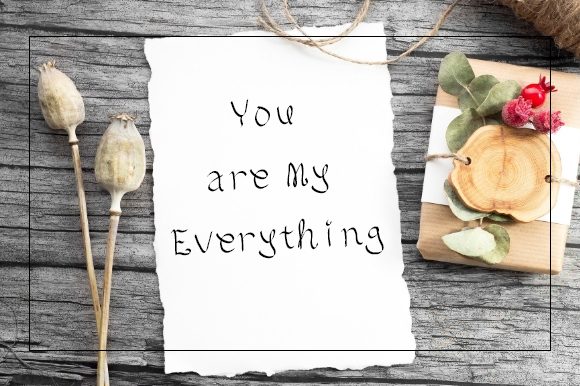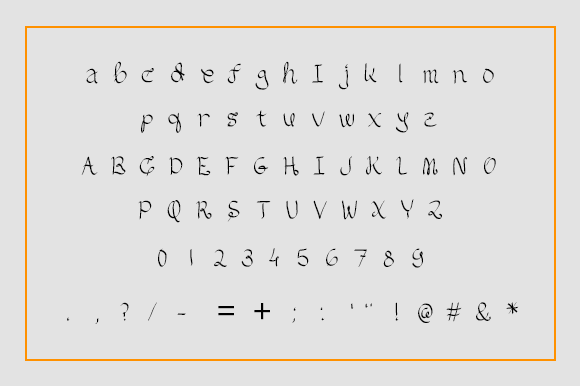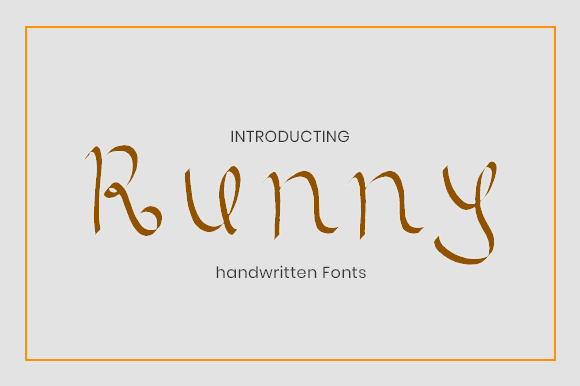
Runny Font
About Runny Font
Runny is a cute handwritten font. Clean and a little bit quirky, this font is the perfect fit for all of your logos, branding, social media, and crafty DIY projects.